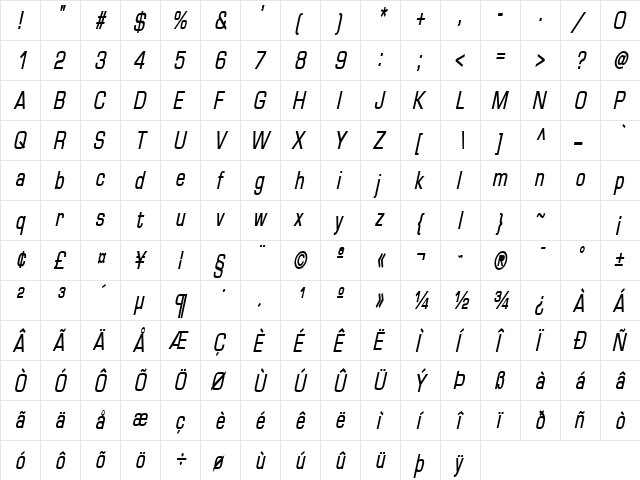
Eurasia Thin BoldItalic
Design Context for Eurasia Thin Typeface
Eurasia Thin offers clean, dependable letterforms without strong stylistic allegiance, making it a practical choice for designers who need flexibility. Its italic angle brings a sense of urgency and motion to the letterforms. The heavy weight commands attention and anchors typographic hierarchies.
Pro Tip: Try Eurasia Thin for annotation and caption copy alongside an upright companion — the contrast in angle creates a dynamic but ordered typographic system.